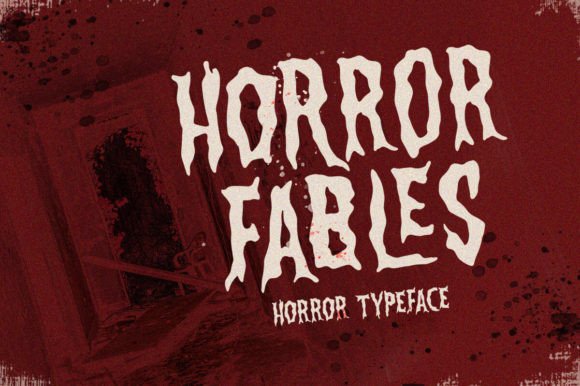
Step into the realm of darkness and intrigue with the captivating "Horror Fables" font, a display typeface that will send shivers down your spine and leave your audience spellbound. Crafted by the master of eerie elegance, letterhend, this font family exudes dread and unease with every letterform, making it the ultimate choice for all things horror, creepy, and spine-tingling.
Unleash the haunting beauty of "Horror Fables" on your sinister book covers, and watch as your readers are drawn into a world of shadows and secrets. Let the macabre allure of this font weave its spell on your spooky app, creating an unforgettable experience that keeps users captivated from the first click. Whether you're designing a chilling poster for a horror movie premiere or crafting an invitation to a haunted house party, "Horror Fables" will infuse your work with an eerie aura that lingers long after the lights go out.
With its sharp edges and unsettling curves, "Horror Fables" commands attention and leaves a lasting impression. Its unique letterforms evoke a sense of mystery and intrigue, inviting your audience to delve deeper into your creations.
So, if you dare to tread the path of the macabre, embrace the darkness with "Horror Fables," the font that will make your designs truly horrifyingly beautiful.